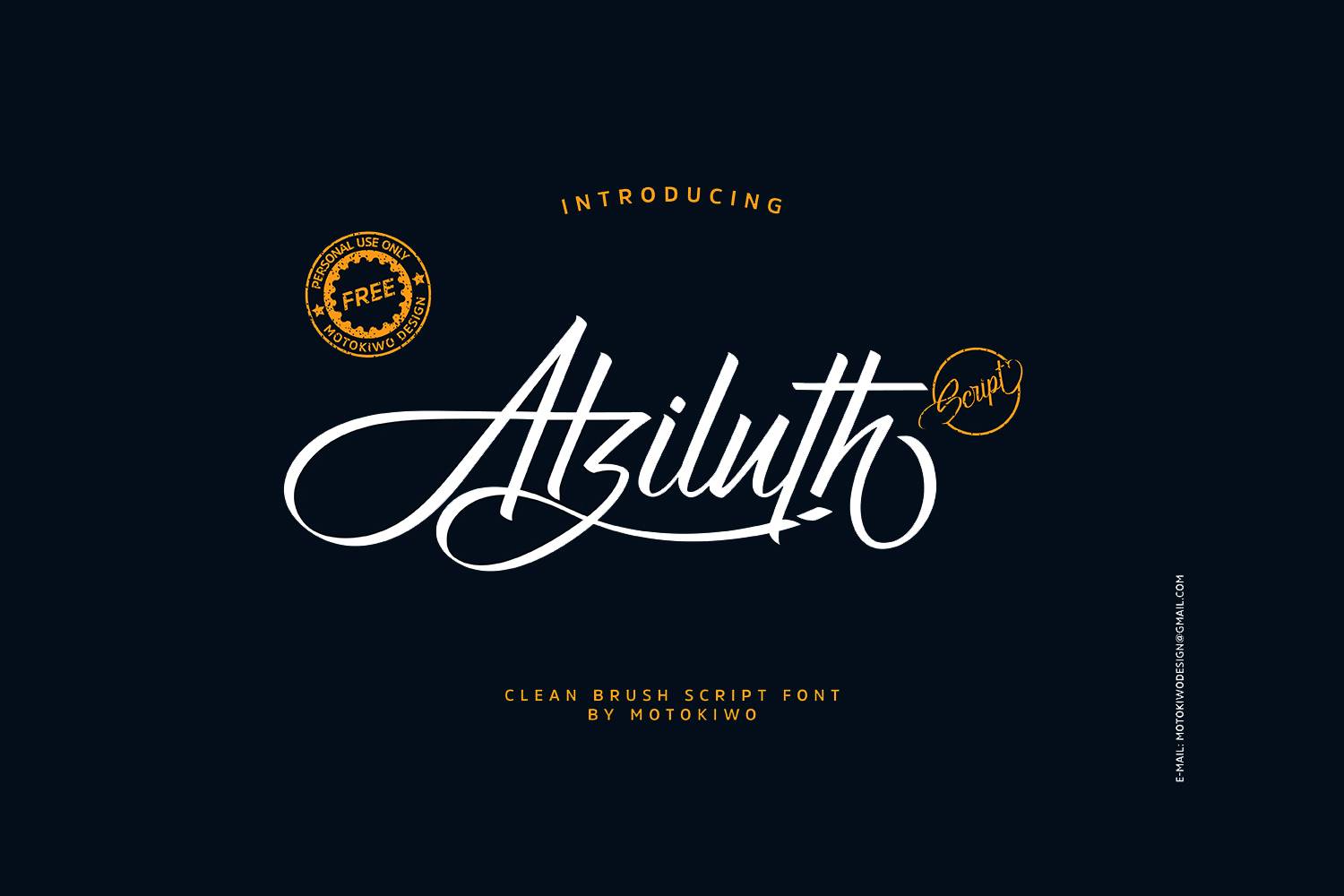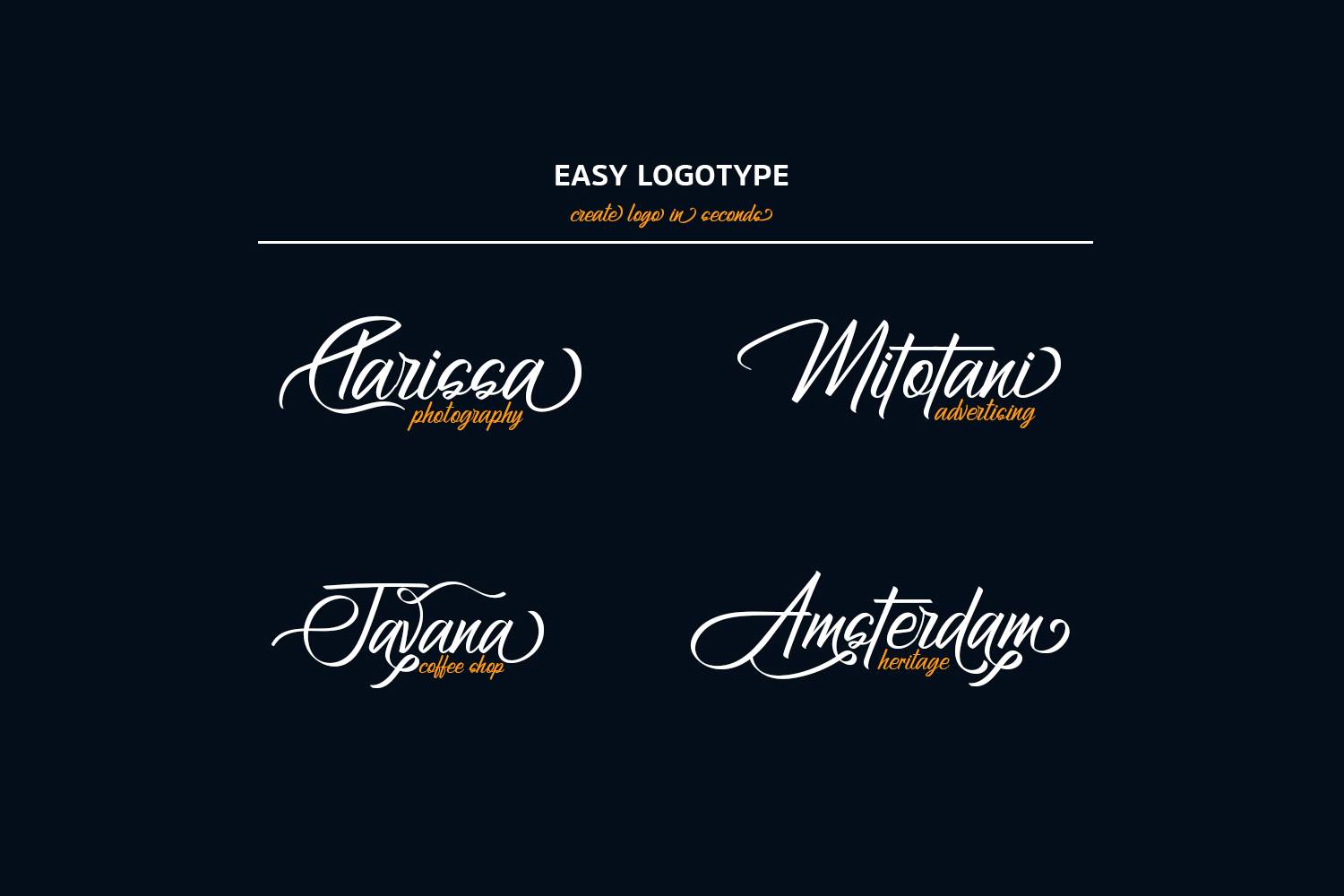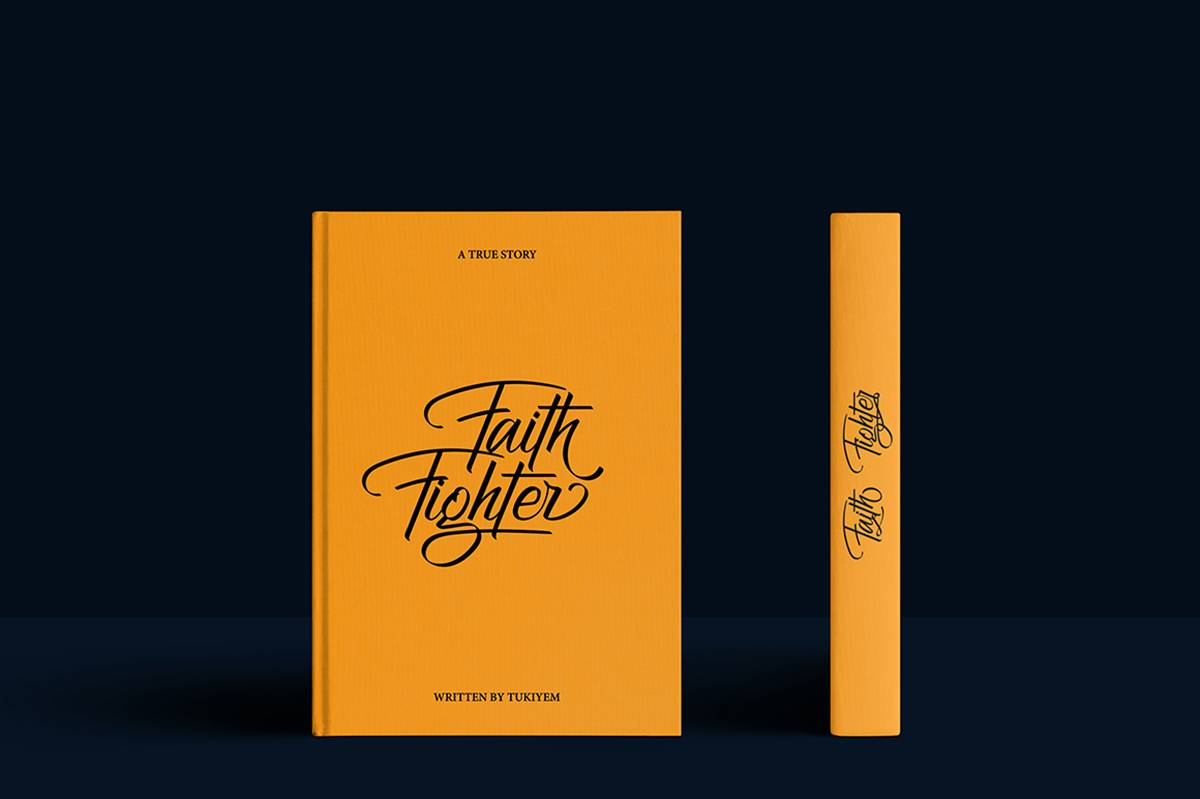
Atziluth is an elegant script font characterized by its flowing, calligraphic letterforms and delicate, fine strokes. Its tall, slender letters with graceful curves and moderate contrast evoke a sophisticated, artistic feel, making it ideal for luxury branding, invitations, and stylish editorial use. This font works best where a refined, personal touch is desired, lending a sense of elegance and creativity to headlines and logos.
Atziluth Font
About Atziluth Font
| Font family | Atziluth Font |
| Designer | Motokiwo |